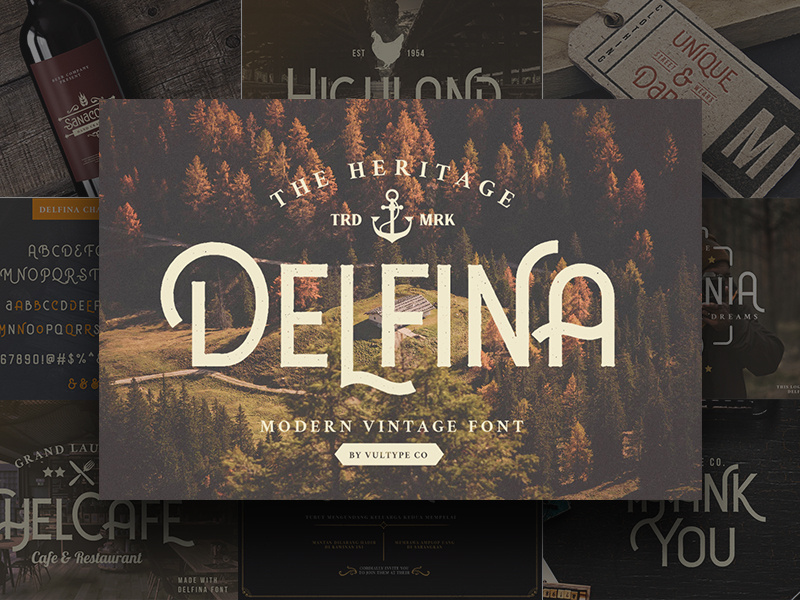
Vintage sans serif font
Today we have released a new font called Delfina Vintage Font. inspired by the old american vintage which has two styles, Clean and Rough also comes with a lot of alternative characters